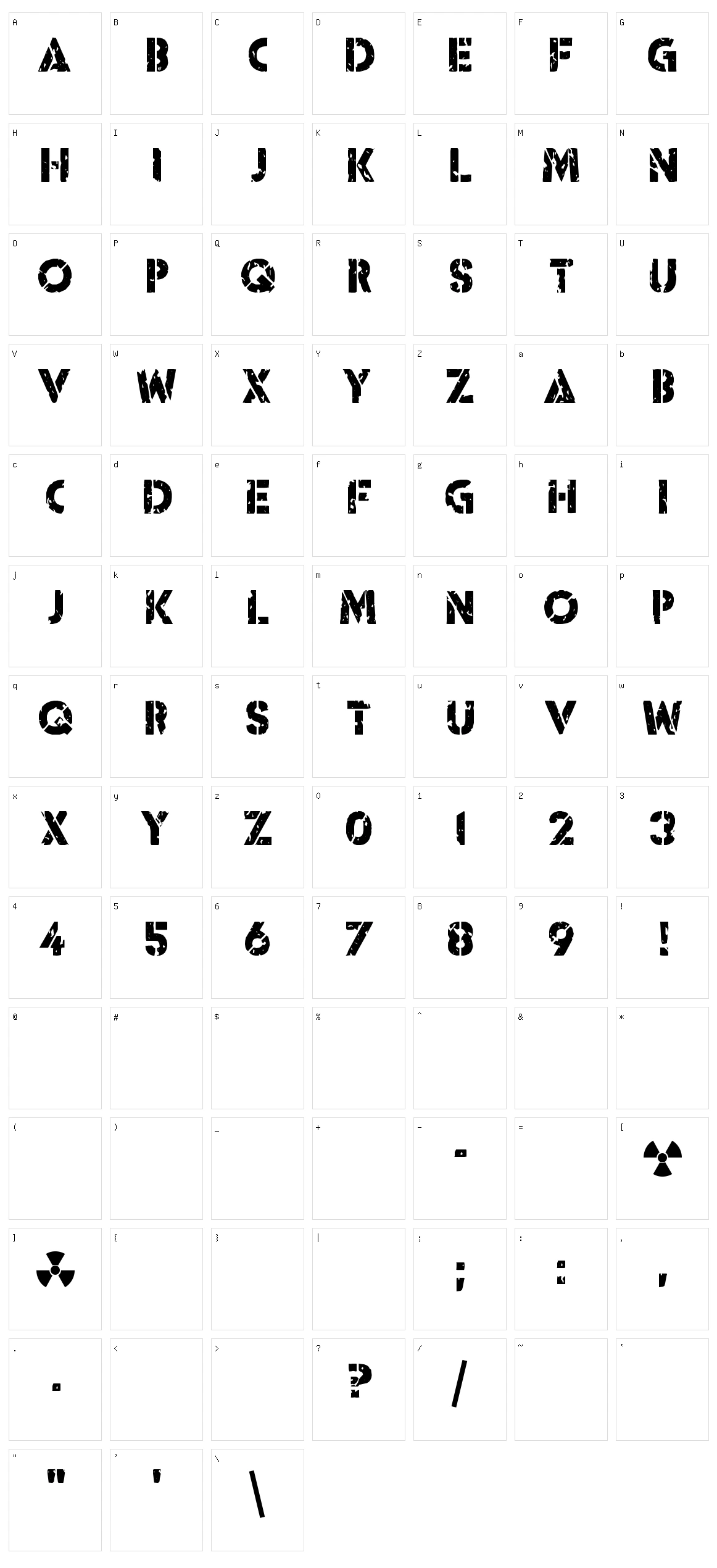
The free font ICBM SS-20 25 is carefully designed by Vic Fieger, showcasing a thoughtful balance of creativity and usability and falls under the Stencil font style. When you download the ZIP file, it contains only 32.19 KB of font files, making it lightweight and quick to download. Please review the license details below to understand permitted usage and distribution rights. If license information is not available, we recommend using this font for personal projects only or contacting the author directly for commercial usage permissions.